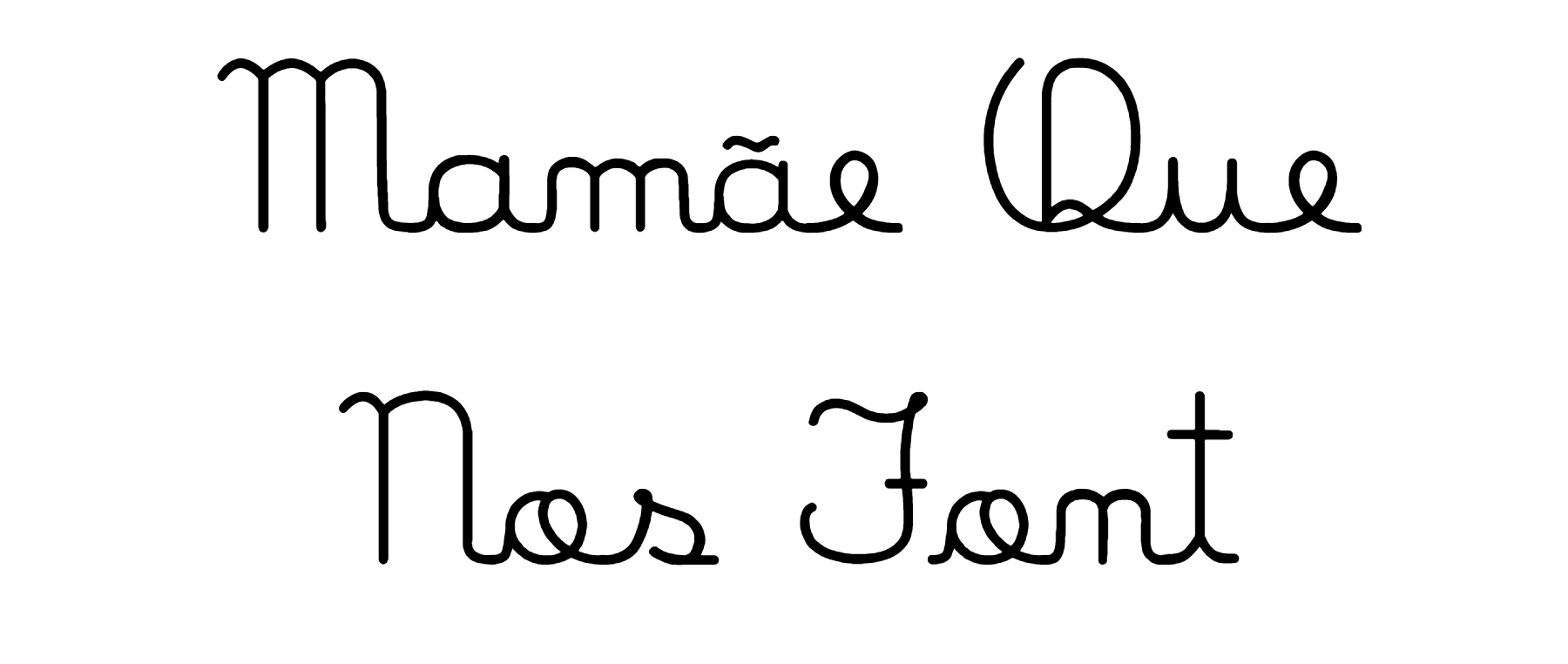
Mamãe Que Nos
Mamãe Que Nos is a script font. It has that hand-lettered, flowing feel people look for when regular type seems too stiff. You can download it for free and test it with your own words in the preview above.
- Languages: English and Portuguese
What You Can Type With Mamãe Que Nos
Mamãe Que Nos covers the full alphabet in upper and lowercase, plus all ten numbers, so you can set names, dates and prices without switching fonts. Everyday marks like &, !, ? and @ are there too. Thanks to its accented letters, it also works for Portuguese, not just English.
Where Mamãe Que Nos Works Best
Think of Mamãe Que Nos for wedding invitations, logos and signature-style headings. The file has no kerning data, so in logos and big titles check pairs like AV, To and Wa and tighten the spacing by hand. Script fonts read best in short bursts, so keep it to names, titles and one-line quotes. Skip all caps: script capitals are drawn to start a word, not to fill one.
Does Mamãe Que Nos support accented letters?
Yes. Mamãe Que Nos includes the accented letters needed for Portuguese, so it works for more than just English.